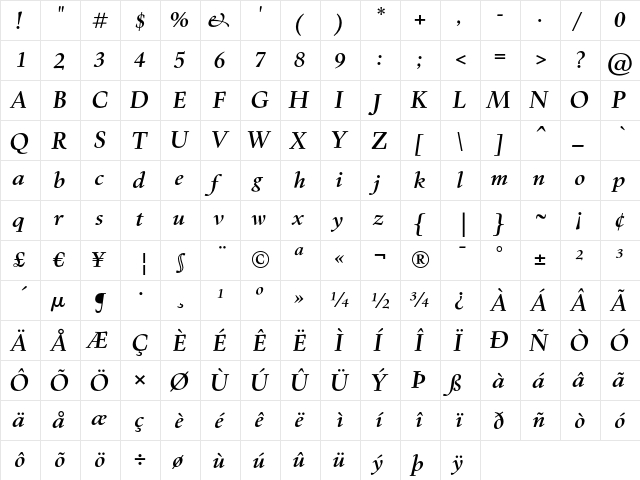
Kennedy Bold Italic
Design Context for Kennedy Typeface
Kennedy is a composed and adaptable typeface that performs quietly and consistently across a wide range of design contexts. The slanted form adds forward momentum and visual energy. The heavy weight commands attention and anchors typographic hierarchies.
Pro Tip: Try Kennedy for annotation and caption copy alongside an upright companion — the contrast in angle creates a dynamic but ordered typographic system.